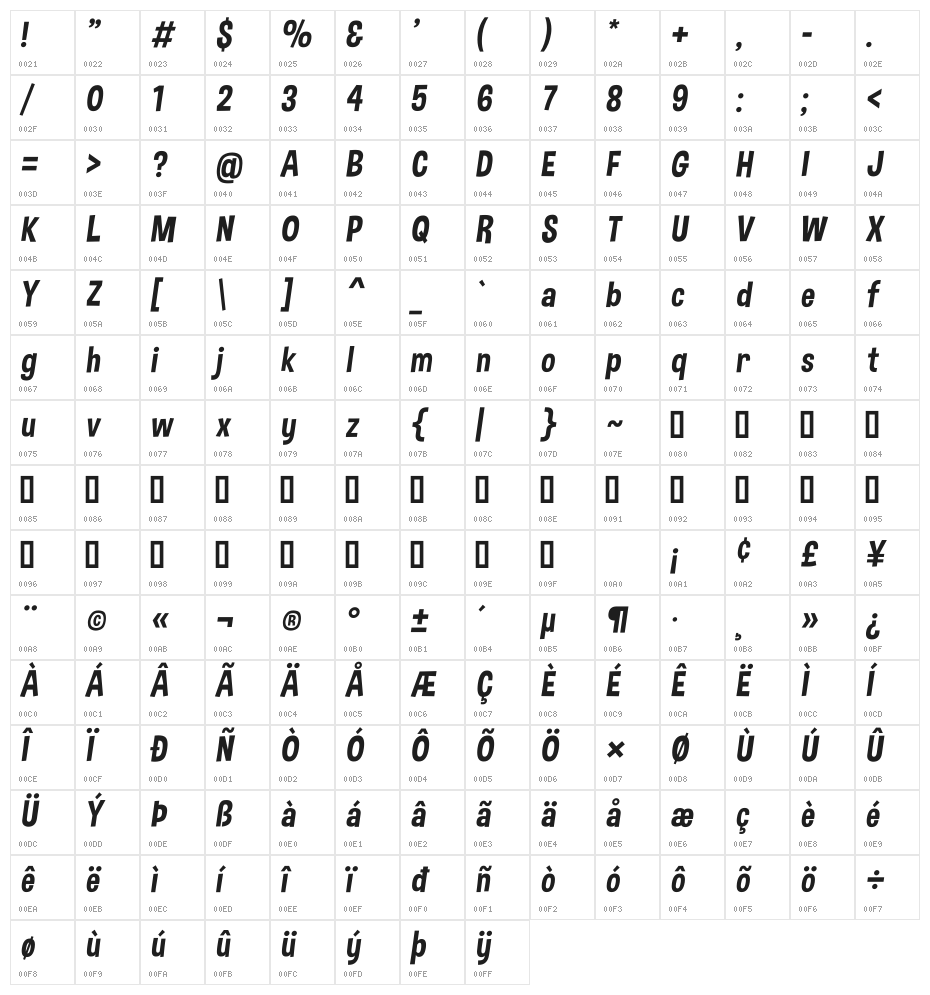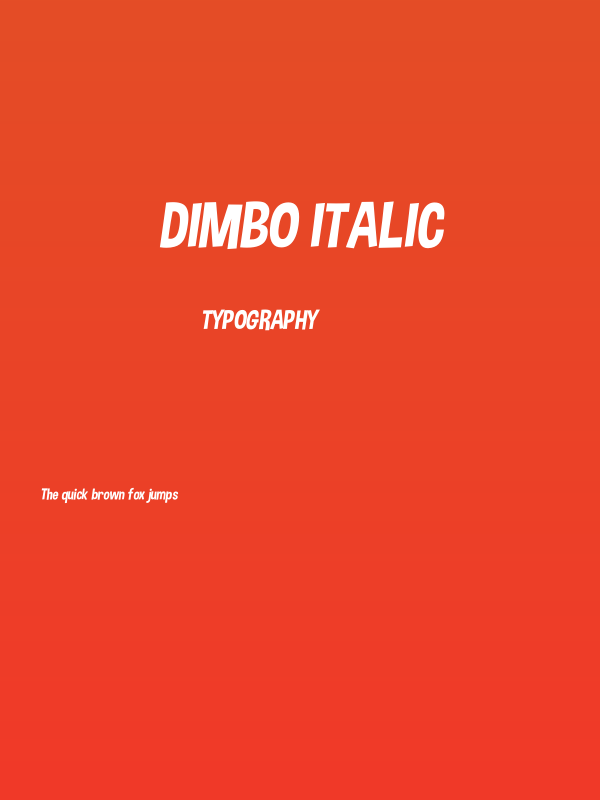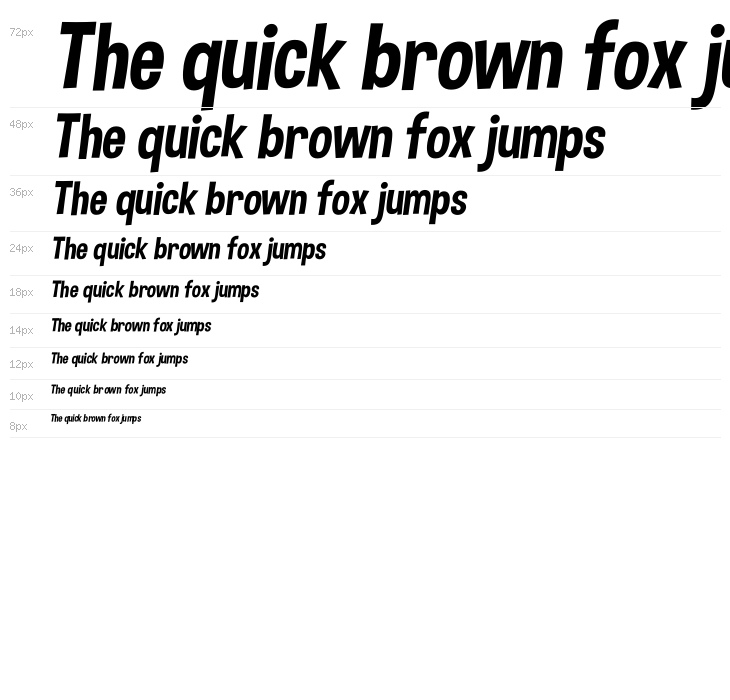
Dimbo Italic Font
Dimbo Italic Description
This font exhibits a bold and dynamic style with a pronounced italic slant, giving it a sense of motion and energy. The characters are robust and slightly condensed, contributing to a compact appearance that maintains readability. The strokes are consistent in weight, providing a uniform look across all characters. The uppercase letters are strong and assertive, while the lowercase letters maintain a friendly and approachable feel. The numerals are clear and legible, matching the overall boldness of the font. Special characters are well-integrated, ensuring versatility in various design contexts.
| Proposed Projects | Ideal for sports branding, dynamic posters, and eye-catching headlines. |